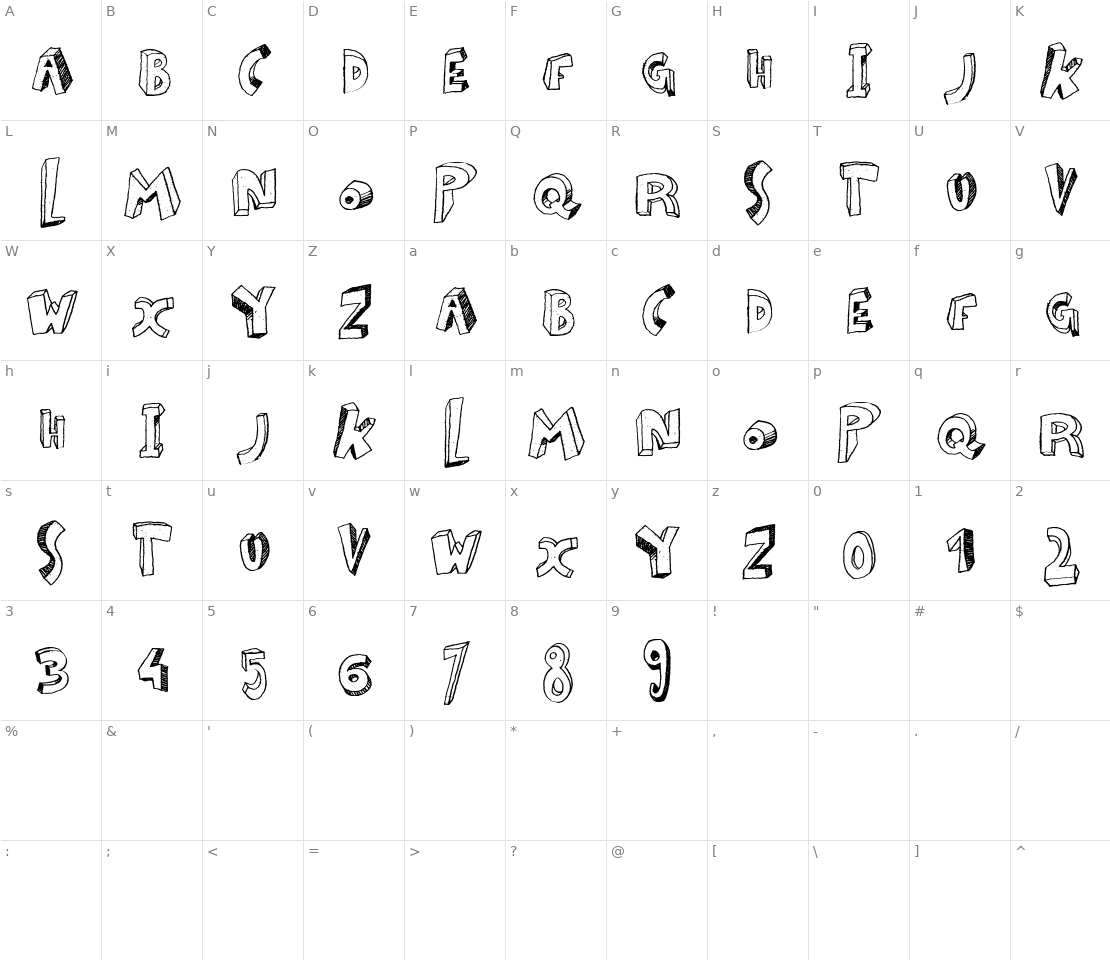
Zou
Zou is a hand-drawn novelty face from imagex where every letterform looks sketched in with loose, hatched strokes, as if someone doodled them in the margins of a notebook. The result is playful and whimsical without feeling sloppy, with enough character in each glyph to hold attention at headline sizes. A good pick for posters, children's projects, or informal branding where you want something that feels genuinely hand-made.